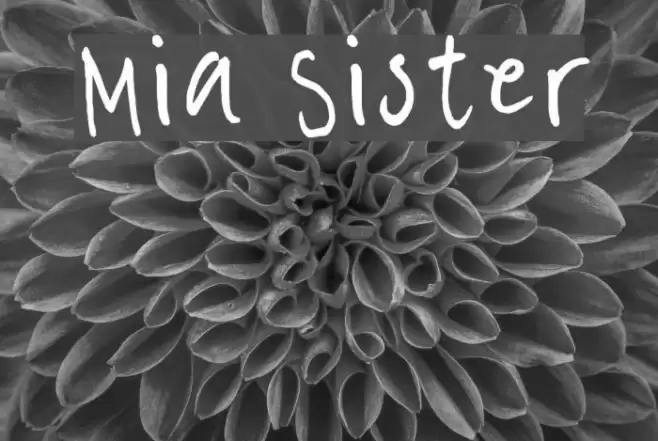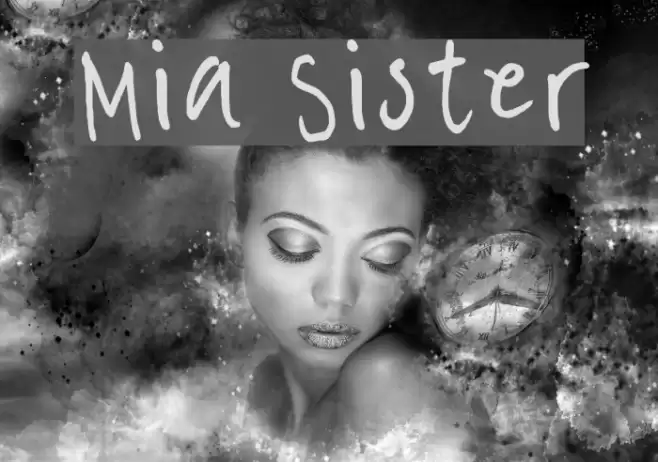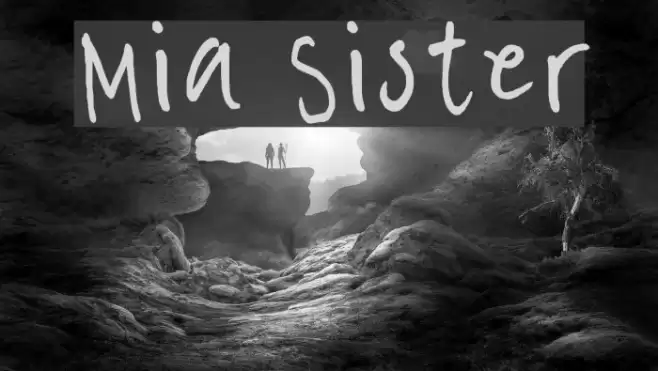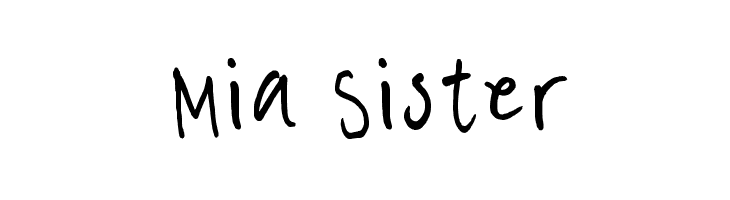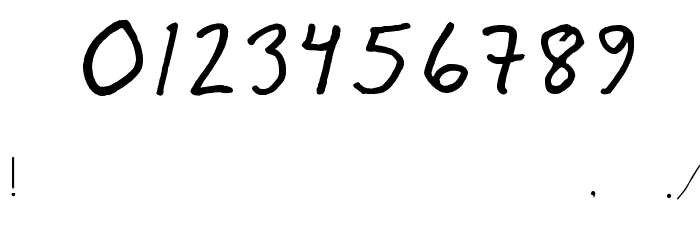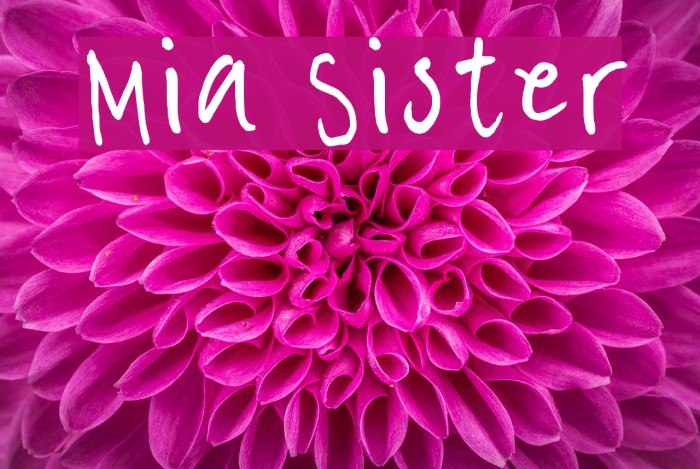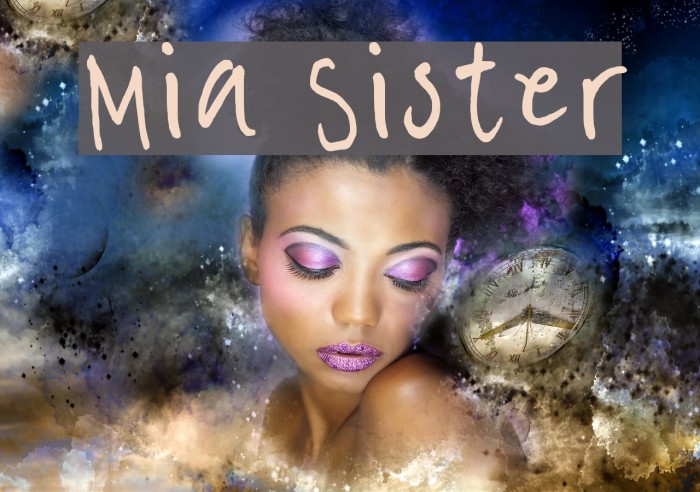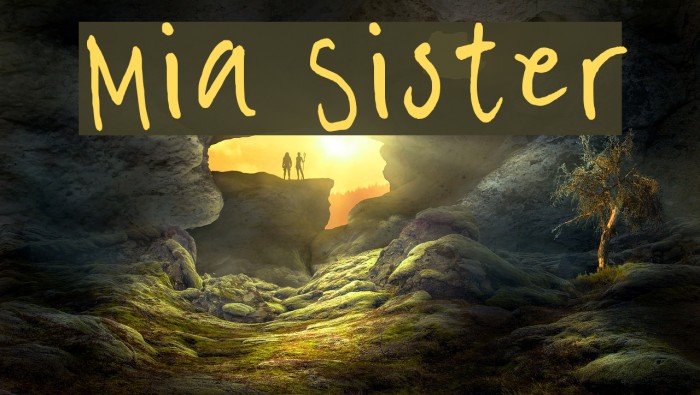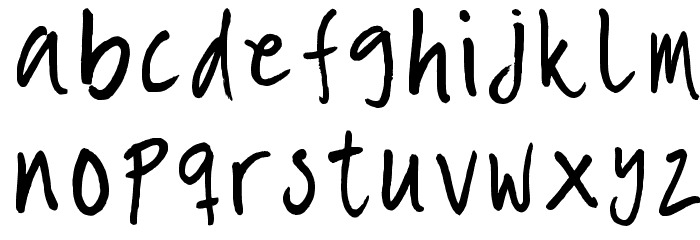
Mia Sister Font
Mia Sister Description
This font exudes a playful and informal vibe, characterized by its handwritten style. The letters are slightly irregular, giving it a natural and organic feel. The strokes are uneven, with varying thickness that adds to its charm. The uppercase letters are tall and narrow, while the lowercase letters maintain a consistent flow, enhancing readability. Numbers and special characters follow the same whimsical style, making it suitable for creative projects. The overall appearance is casual yet distinctive, perfect for adding a personal touch to any design.
A playful, handwritten font with irregular strokes and a casual vibe from Handwritten fonts.
- Font: Mia Sister
- Proposed Projects: Ideal for greeting cards, children's books, personal blogs, and creative branding.
- Overall Style: Casual
- Use Case: Headlines, Logos, Informal Text